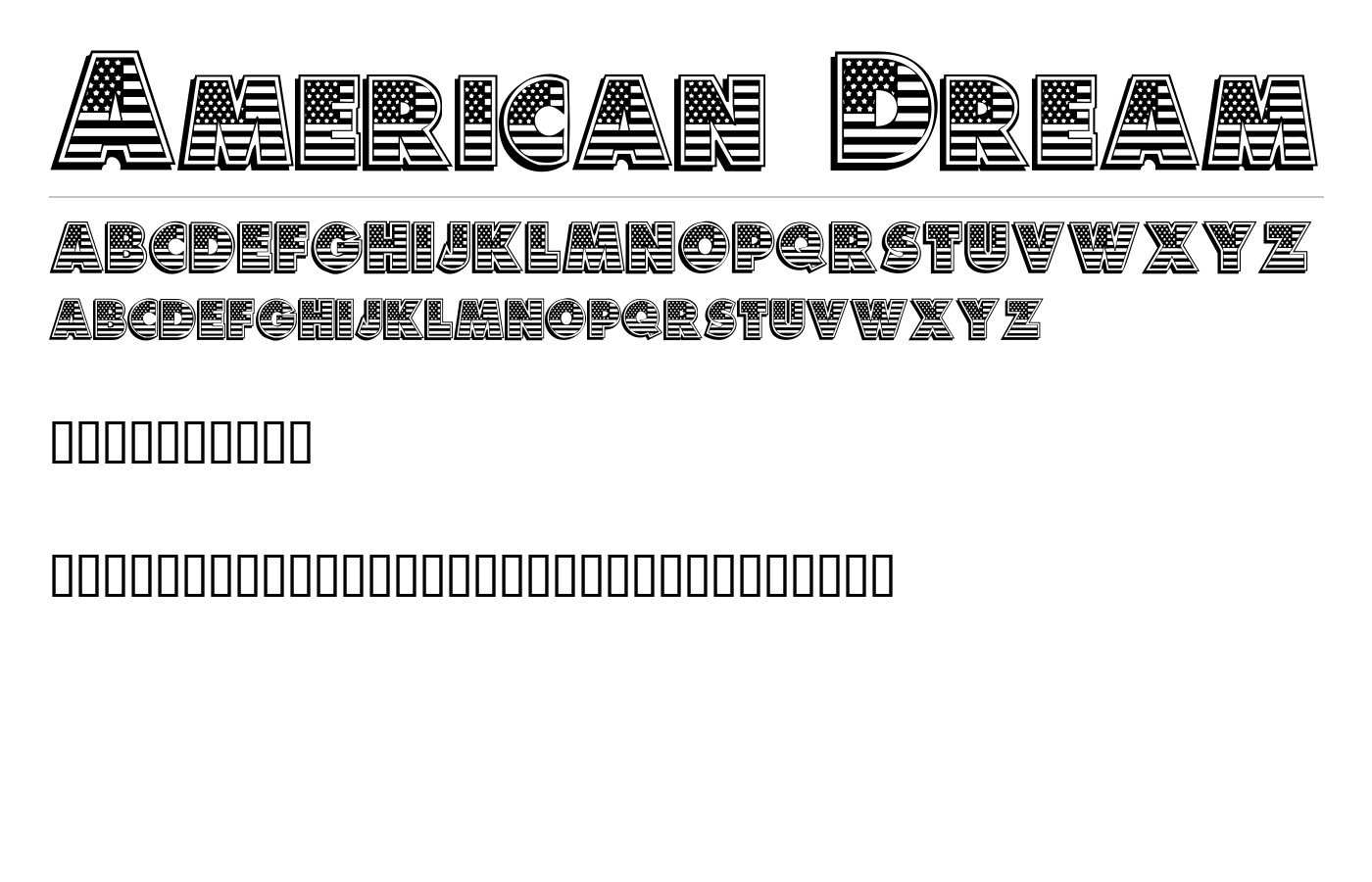
American Dream is a bold, display sans serif font featuring a unique decorative style inspired by the American flag, with stars and stripes integrated into its thick letterforms. Its strong, playful personality makes it perfect for patriotic designs, eye-catching headlines, posters, and branding that aims to convey energy and national pride. This font works best in large sizes where its detailed patterns can shine and add a vibrant touch to any creative project.
American Dream Font
About American Dream Font